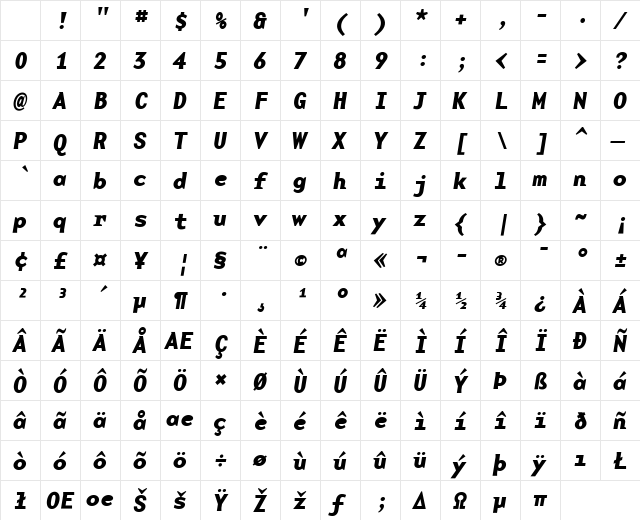
Complete BaseMono Bold Italic glyph index. Displaying only characters natively supported by BaseMono Bold Italic font.
BaseMono uses fixed-width spacing throughout, giving it the structured, systematic character associated with coding environments and technical documentation. The slanted form adds forward momentum and visual energy. Its bold stroke weight gives it real presence on the page.